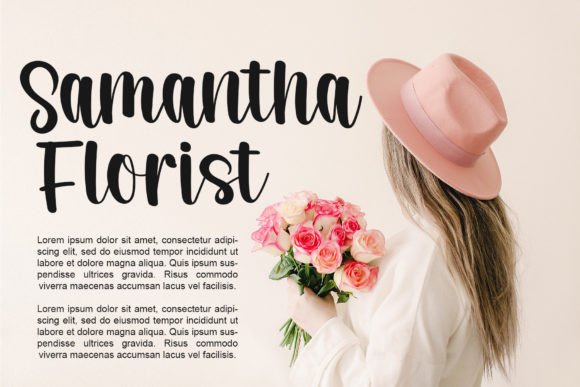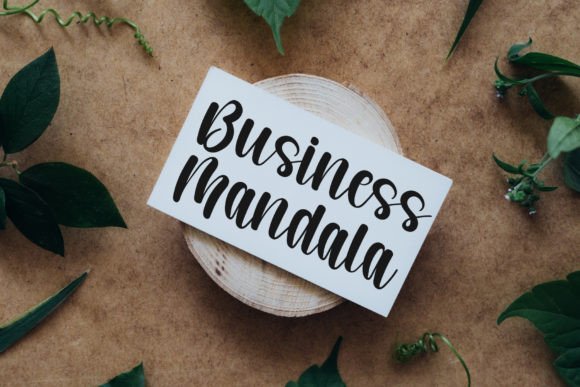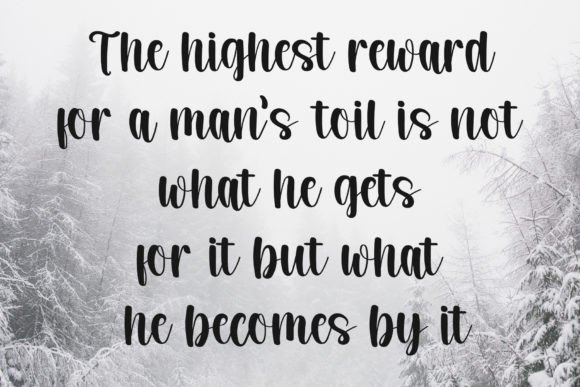
Introduction to Party Display Font
Who hasn’t felt that rush of excitement when planning a birthday party for a loved one? The moment you start browsing through colorful decorations, balloons, and invitations – it’s a creative project that brings out the best in us! And what’s a party without a beautiful, eye-catching design to match the occasion?
For designers, the Party Display Font is a treasure trove of inspiration. This modern, handwritten font adds a joyful touch to any project, from greeting cards to branding and packaging. With its PUA encoding, accessing all the amazing glyphs and ligatures is a breeze. Whether you’re working on a high-quality design for a client or simply creating a beautiful card for a friend, the Party Display Font is a valuable design resource that’s sure to impress.
Key Features of Party Display Font
- High-quality font design suitable for creative projects, including party invitations, banners, and other design elements.
- Unique, eye-catching design with a transparent background, allowing for flexibility in design placement and composition.
- Large character set with extended language support, making it ideal for multilingual designs and creative projects.
- Perfect for use in digital and print designs, including social media graphics, posters, and other promotional materials.
Honest Review: Party Display Font
As a designer, I’m always on the lookout for high-quality design resources to elevate my creative projects. Recently, I stumbled upon the Party Display Font, and I’m excited to share my honest review with you.
- ✨ The Party Display Font features a transparent background, allowing for easy customization and flexibility.
- ✨ The design is modern and playful, making it perfect for a variety of creative projects, from party invitations to social media graphics.
- ⚠️ The font may not be suitable for formal or professional projects, as it’s more geared towards casual and creative applications.
- ⚠️ Some users may find the font a bit too flashy or over-the-top, so it’s essential to use it judiciously.
Overall, I’m impressed with the Party Display Font. It’s a fantastic design resource for designers who want to add a touch of whimsy and fun to their creative projects. While it may not be perfect for every occasion, it’s definitely a valuable addition to any design toolbox.